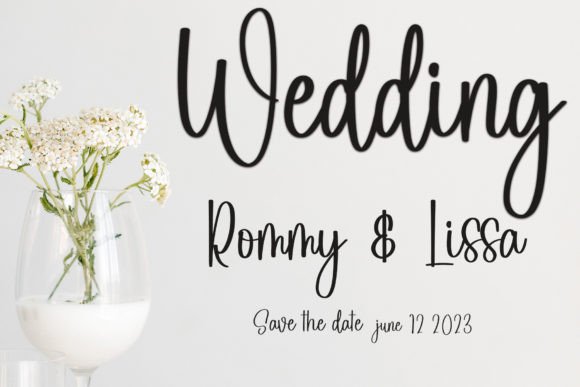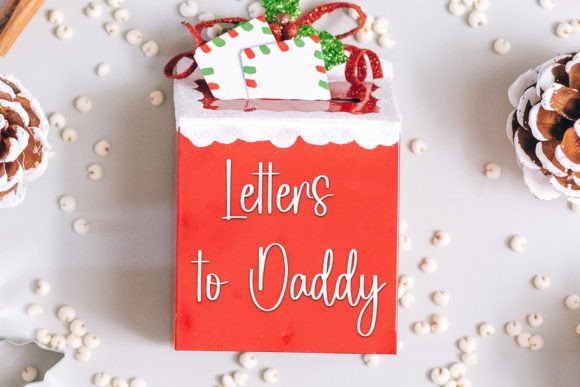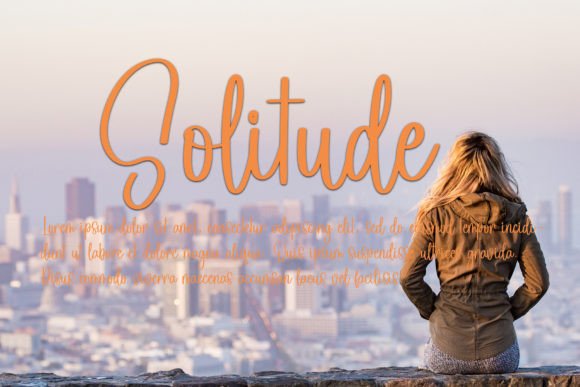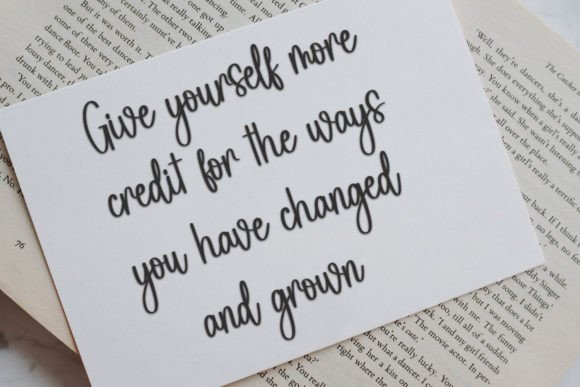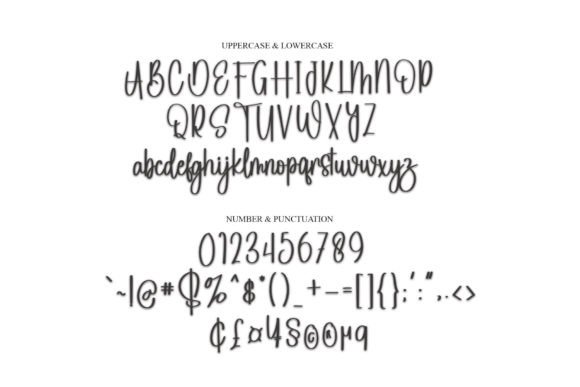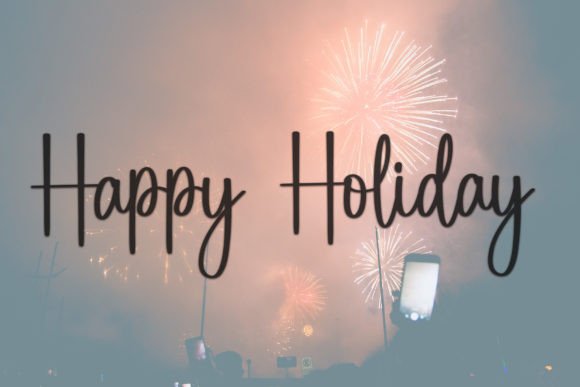
Hello Family Font: Elevate Your Designs with Elegance and Sophistication
In the world of typography, few fonts manage to capture the essence of elegance and sophistication as effortlessly as the Hello Family Font. This magical script font has been carefully crafted with a touch of refinement, making it an ideal choice for designers and crafters looking to infuse their projects with a dash of luxury and creativity. Whether you’re aiming to enhance your Instagram feed or seeking the perfect calligraphy script for your DIY endeavors, Hello Family Font is poised to transform your ideas into true works of art.
The Distinctive Charm of Hello Family Font
Hello Family Font boasts an incredibly distinct and timeless style that sets it apart from the myriad of fonts available today. Its unique charm lies in its elegant strokes, meticulously designed to convey a sense of sophistication and grace. This font is not just a tool for writing; it’s an artistic statement that can elevate any design from ordinary to extraordinary. With Hello Family Font, you can add a personal touch to your projects, making them stand out in a crowded digital landscape.
Perfect for Instagram and Social Media
In the realm of social media, particularly on platforms like Instagram, having a distinctive visual identity is crucial. Hello Family Font offers designers and influencers a stylish and versatile tool to enhance their posts, stories, and bio. Whether you’re crafting captions, quotes, or announcements, this font can add a layer of elegance and professionalism to your content, making it more engaging and visually appealing to your audience.
Ideal for DIY Projects and Crafting
For crafters and DIY enthusiasts, Hello Family Font opens up a world of creative possibilities. Its calligraphy script can be used for a variety of projects, such as handmade cards, invitations, and decorative signs. The font’s elegant and fluid strokes mimic the look of traditional calligraphy, making it perfect for those who want to add a personal and sophisticated touch to their handmade creations.
Transforming Creative Ideas into Art
The true beauty of Hello Family Font lies in its ability to turn any creative idea into a stunning piece of art. Designers can use this font to create breathtaking visuals, from elegant branding materials to captivating social media graphics. Crafters can bring their imagination to life by incorporating this font into their projects, making each piece a unique expression of their creativity. With Hello Family Font, the possibilities are endless, and the only limit is your imagination.
Key Features of Hello Family Font
• Elegant Script Design: Carefully crafted with a touch of elegance, perfect for projects that require sophistication.
• Versatility: Suitable for a wide range of projects, from digital designs to handmade crafts.
• Distinctive Style: Offers a unique and timeless look that can enhance any design.
• Easy to Use: Can be easily integrated into various design and crafting projects.
• Magical and Artistic: Adds a touch of magic to any project, turning ideas into art.
Hello Family Font is more than just a script font; it’s a tool for creativity and self-expression. Its magical and elegant design makes it an invaluable asset for designers and crafters alike. Whether you’re looking to elevate your social media presence, create stunning DIY projects, or simply explore new avenues of creativity, Hello Family Font is the perfect companion. Embrace its distinctive charm and let it guide you in creating spectacular designs that leave a lasting impression.